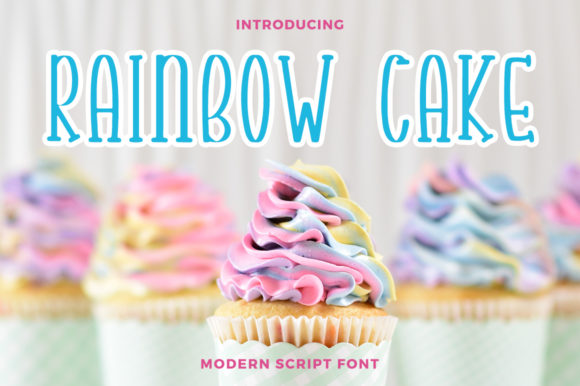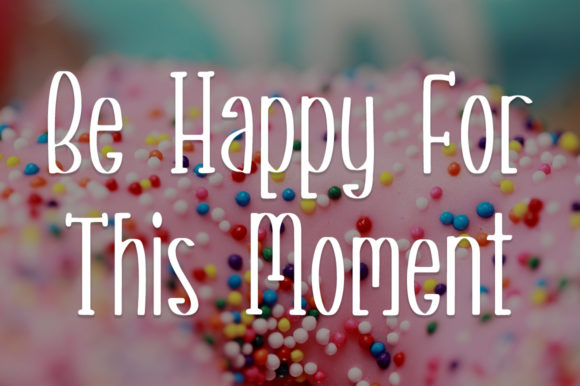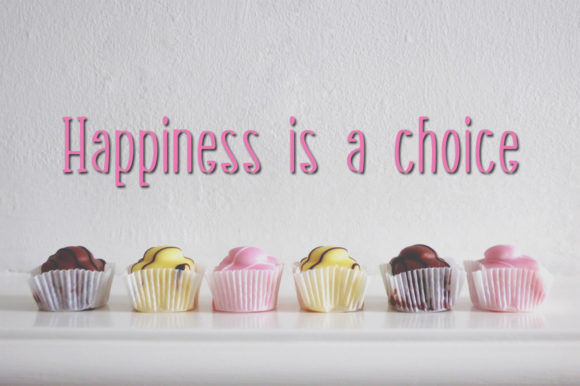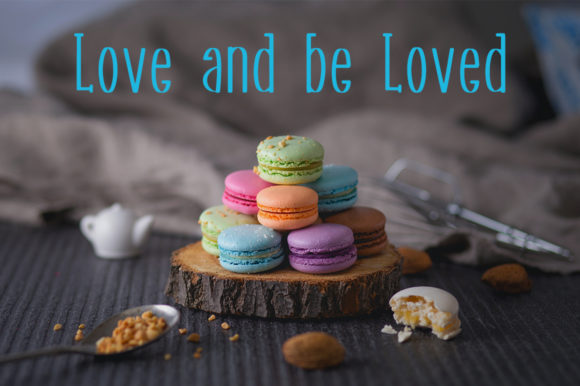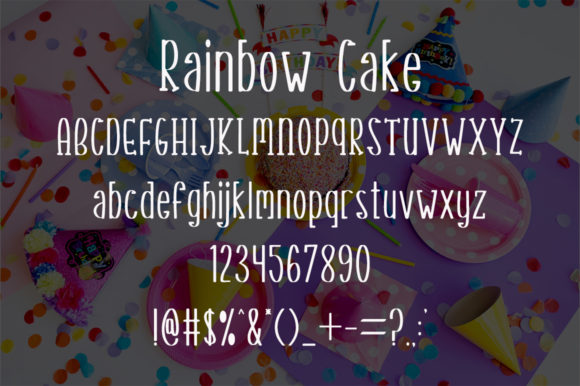
Rainbow Cake Font
About Rainbow Cake Font
Rainbow Cake is a cute handwritten font. It features a relaxed feel and it will add a sophisticated touch to your designs. Rainbow Cake is perfect for greeting cards, headlines or branding, stationery and much more!